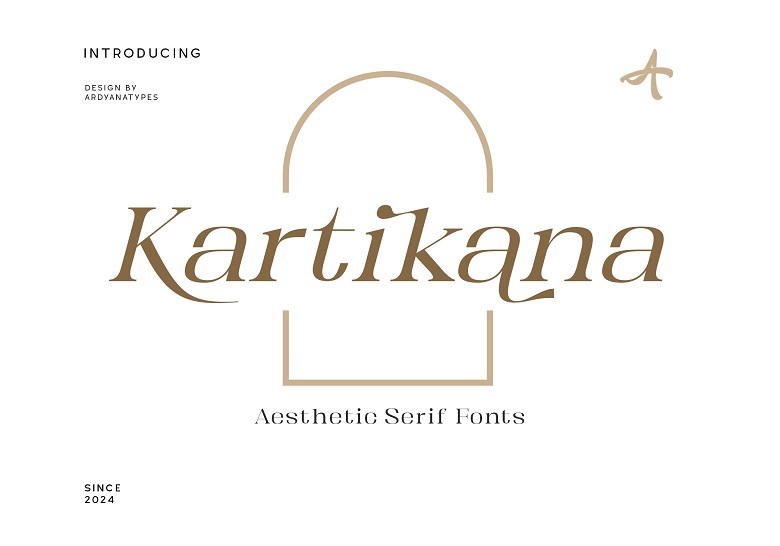
Kartikana Font
Kartikana is a serif font that enhances tradition modernity that makes it eye-catching and graceful to typography. It is characterized by a very modern font, in harmony with the latest trends in terms of font style, therefore Kartikana is perfect for those who want to be up to date. Kartikana has an OpenType feature of using a lot of style in one font so that one will have the freedom of making their designs unique and as many as they want.
The Kartikana is multilingual that means it can spread your message in many languages and with great aesthetics all over the world. It’s perfect to use in different creative works, for both printed publications type, such as books, magazines, ads, products or films titles.
Whether you are considering a more complicated or a simplistic design, Kartikana is always prepared to make sure that you get the design that truly captures your ideas for the project.
Kartikana Serif Font